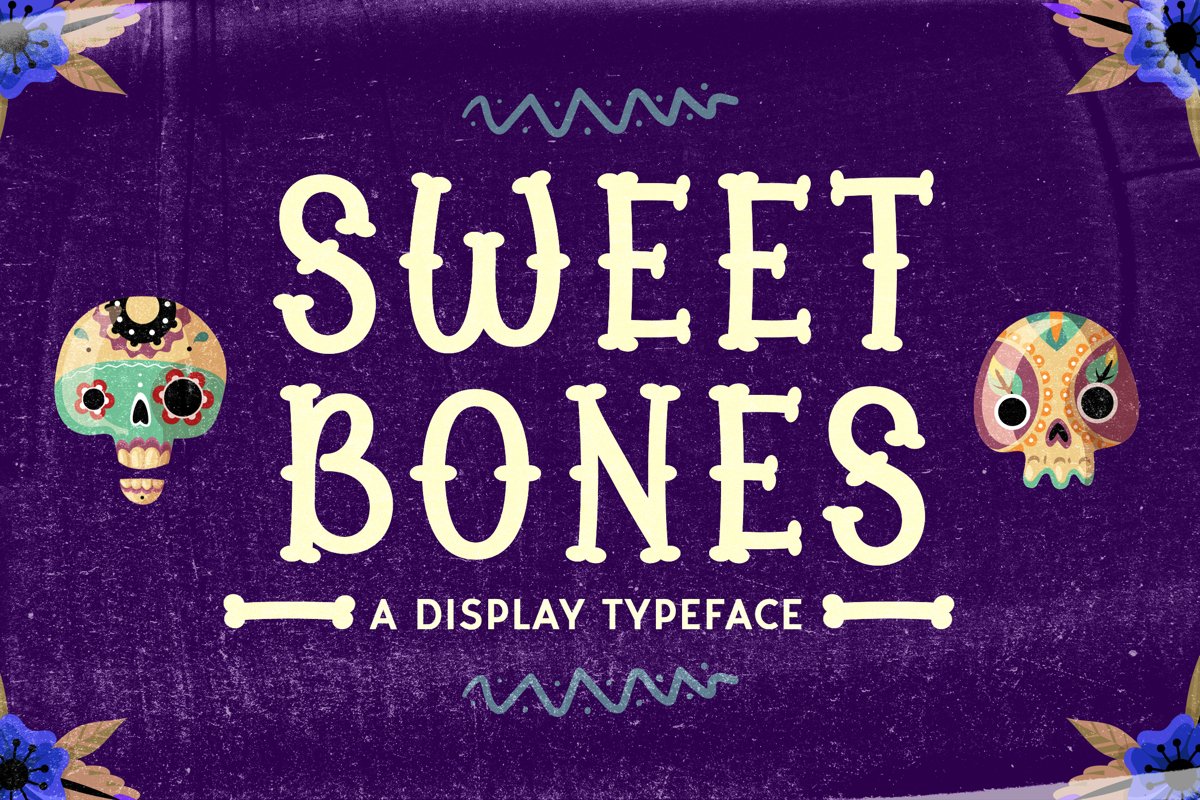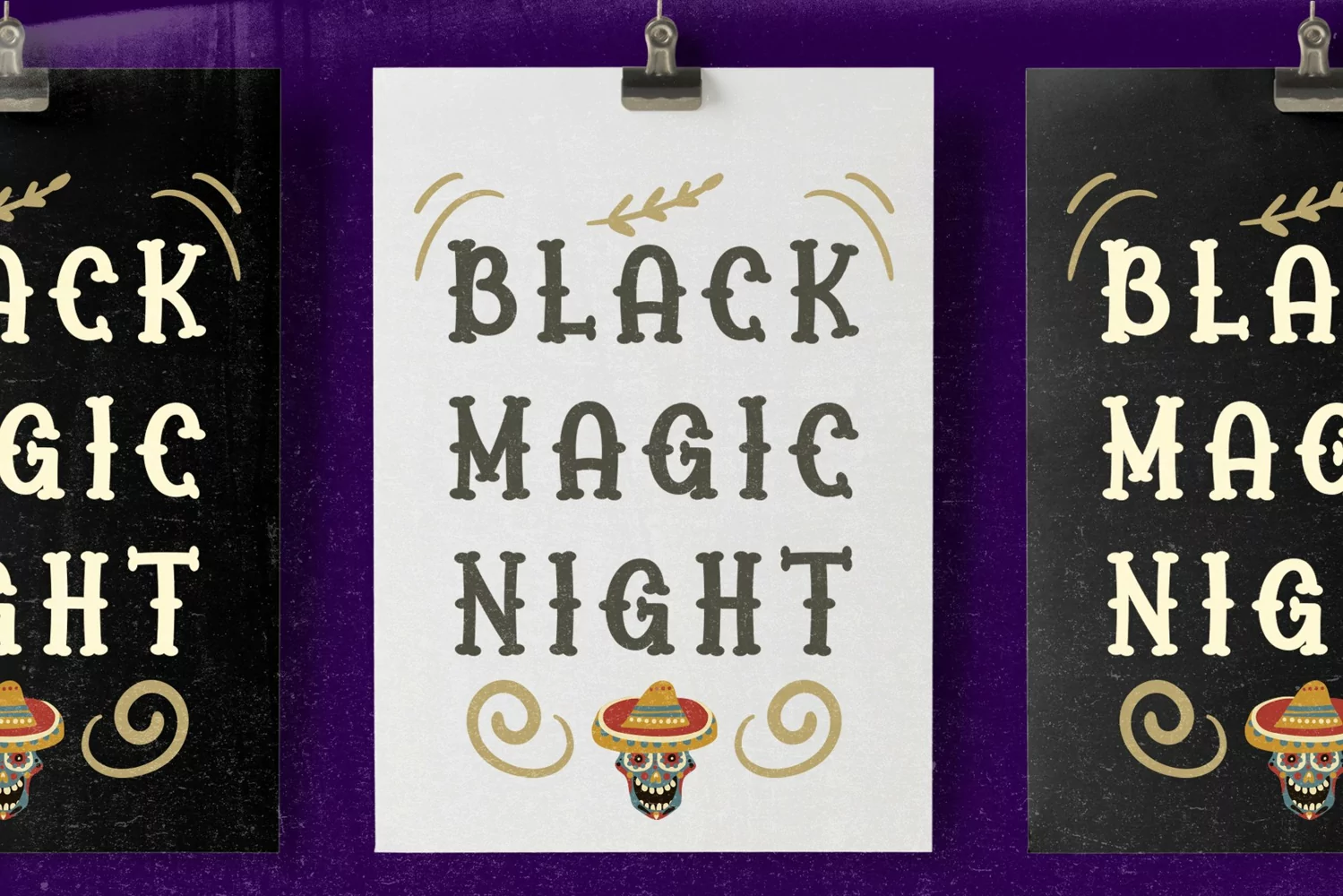
Sweet Bones is a display Typeface. Perfect for display, quotes, event, handcraft, product, logo, logotype, business card, packaging, merchandise, tittle, headline, header, and many more.